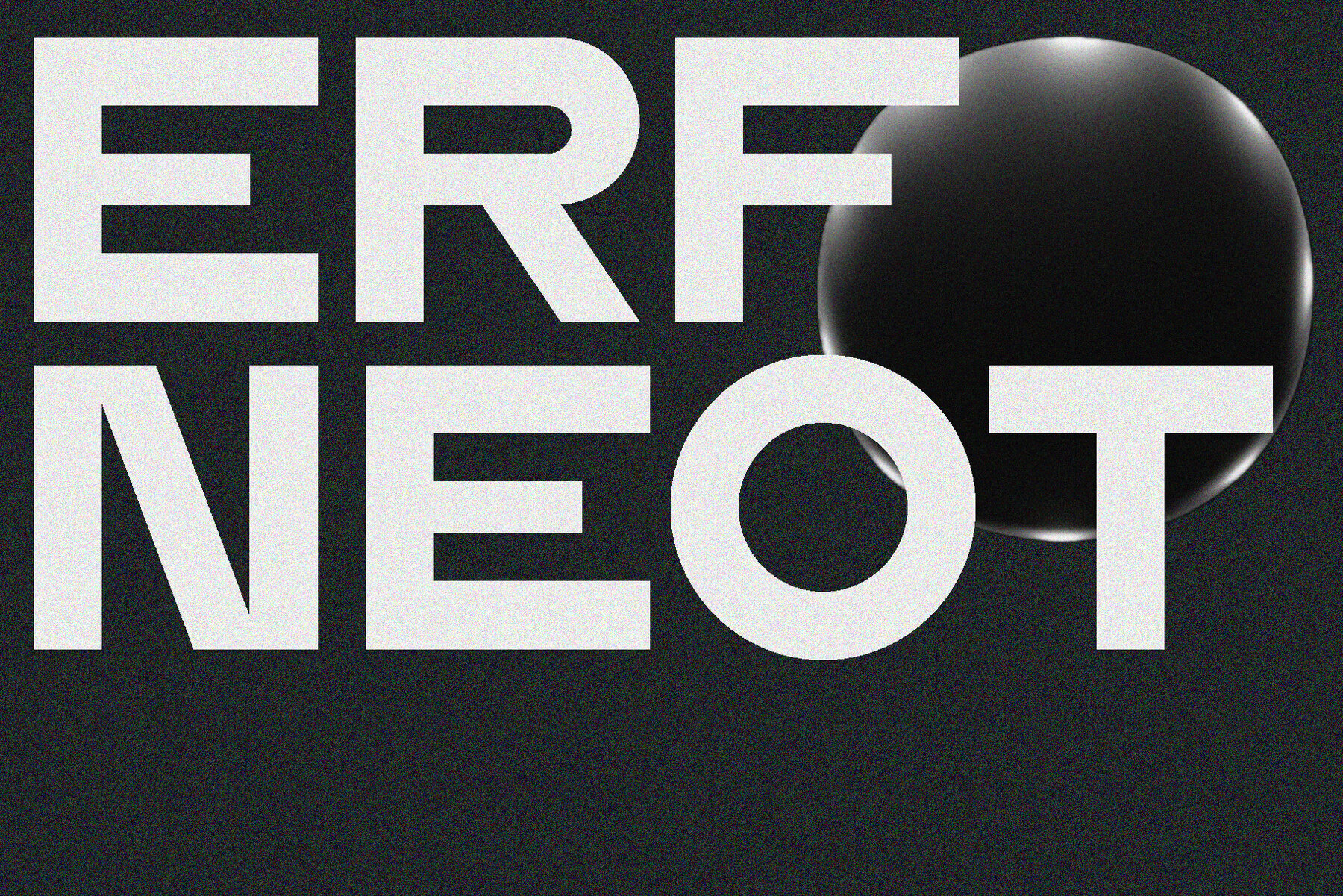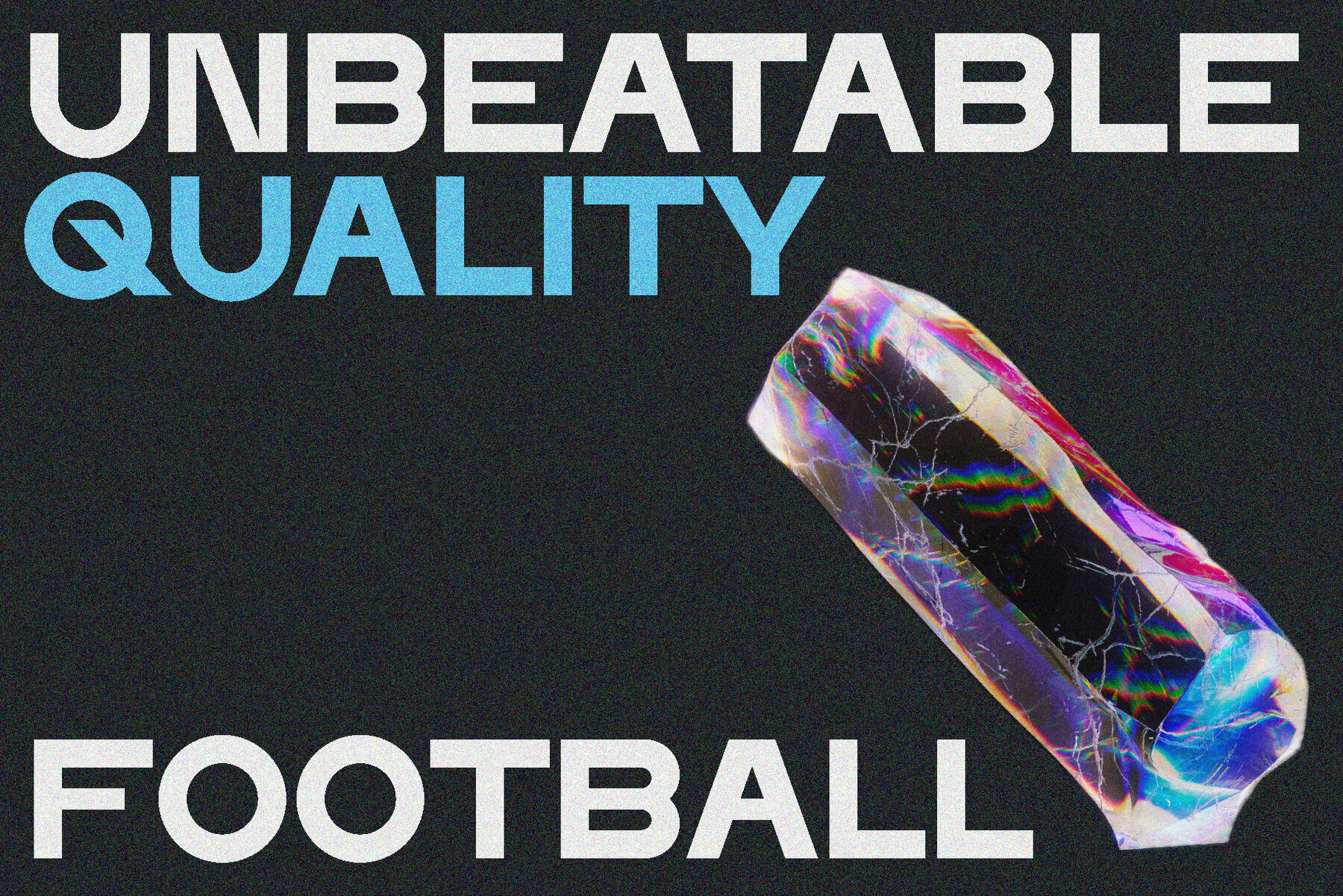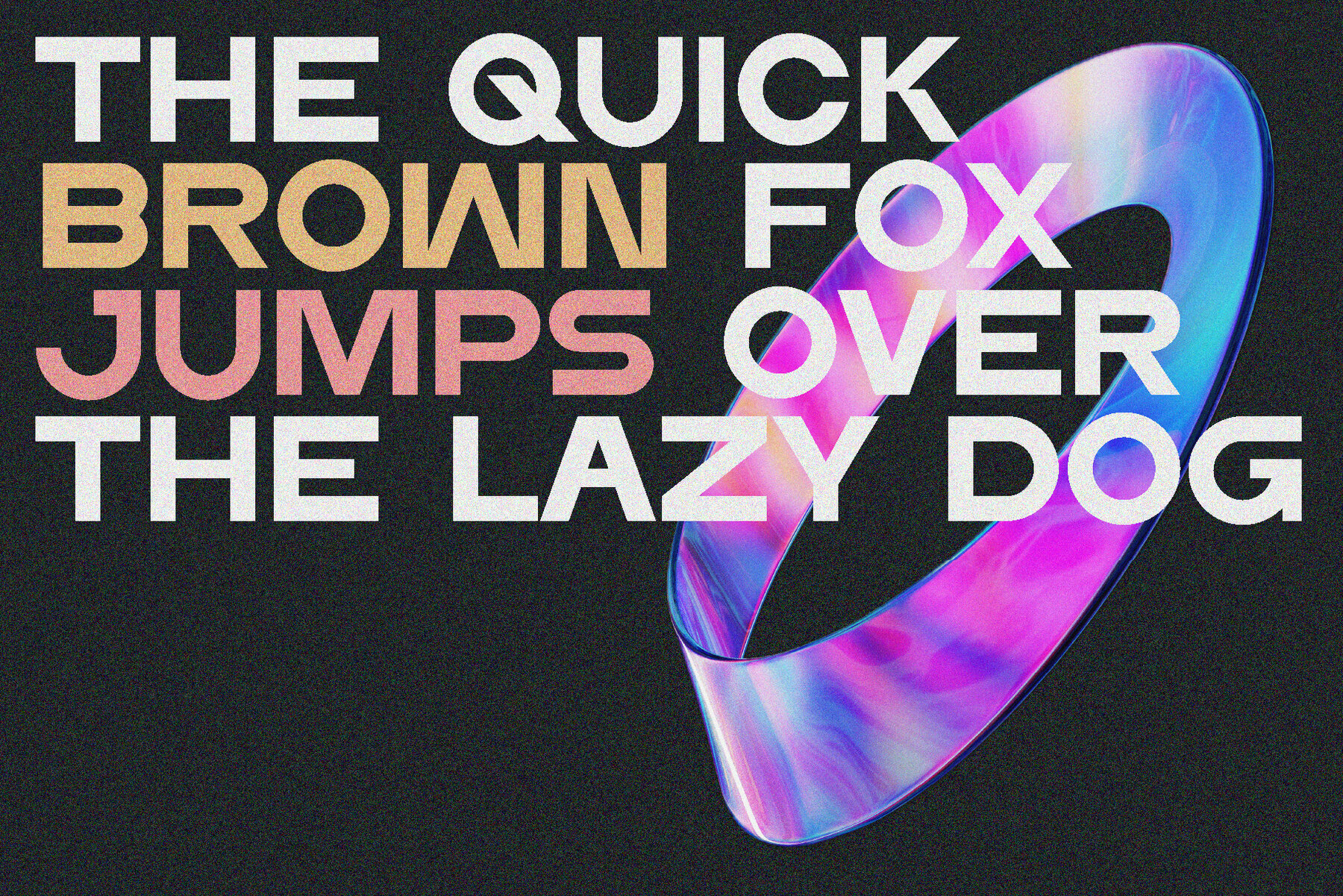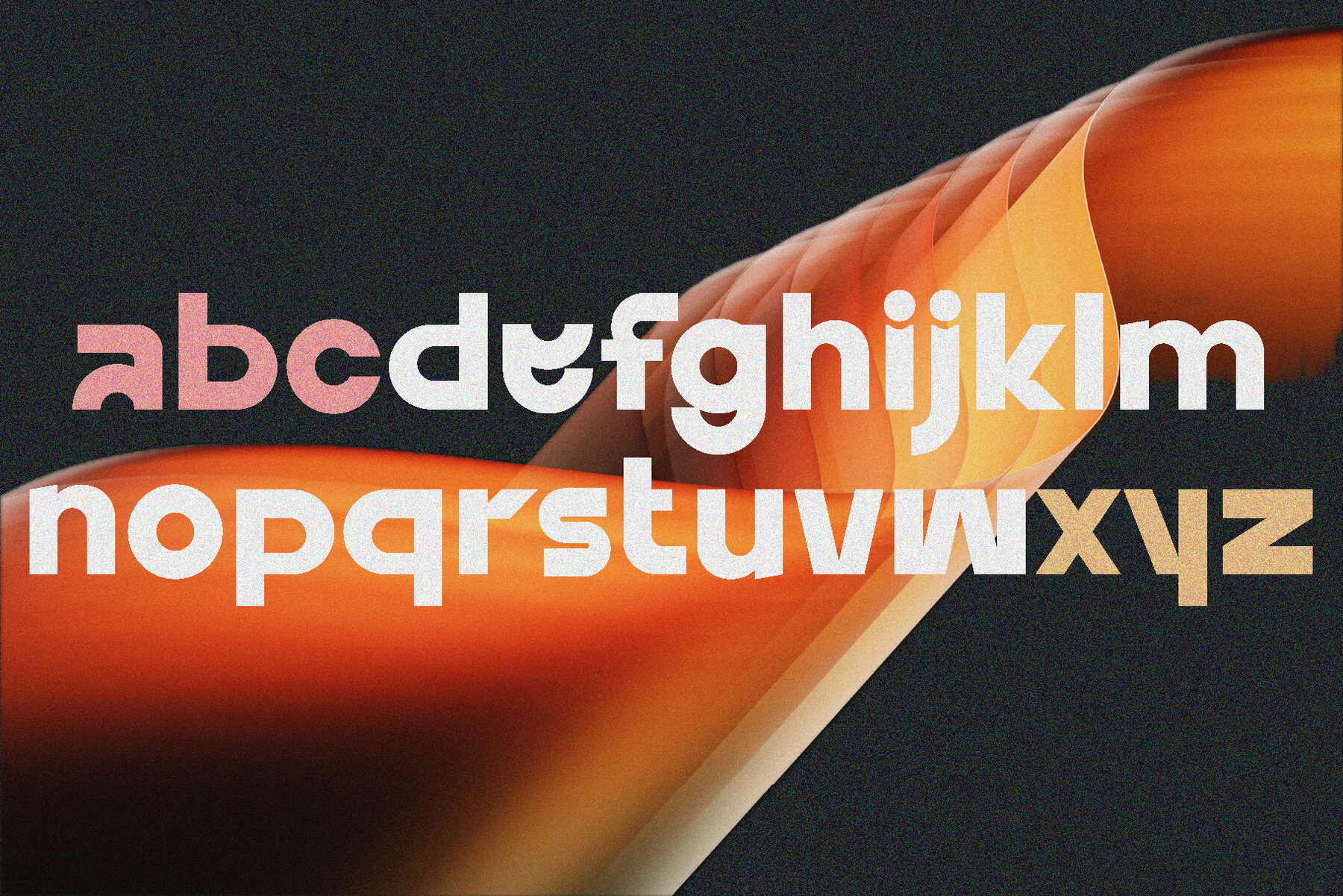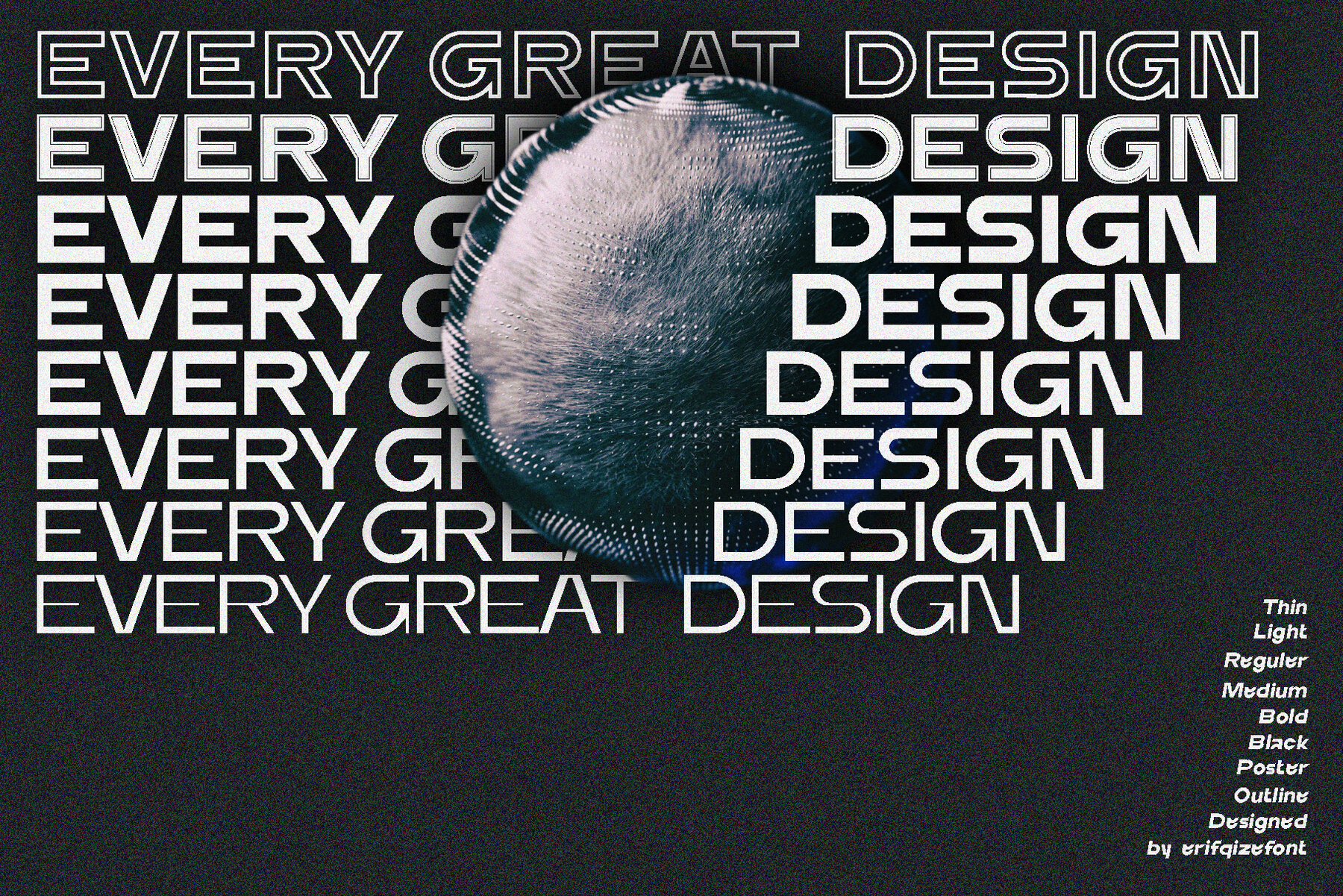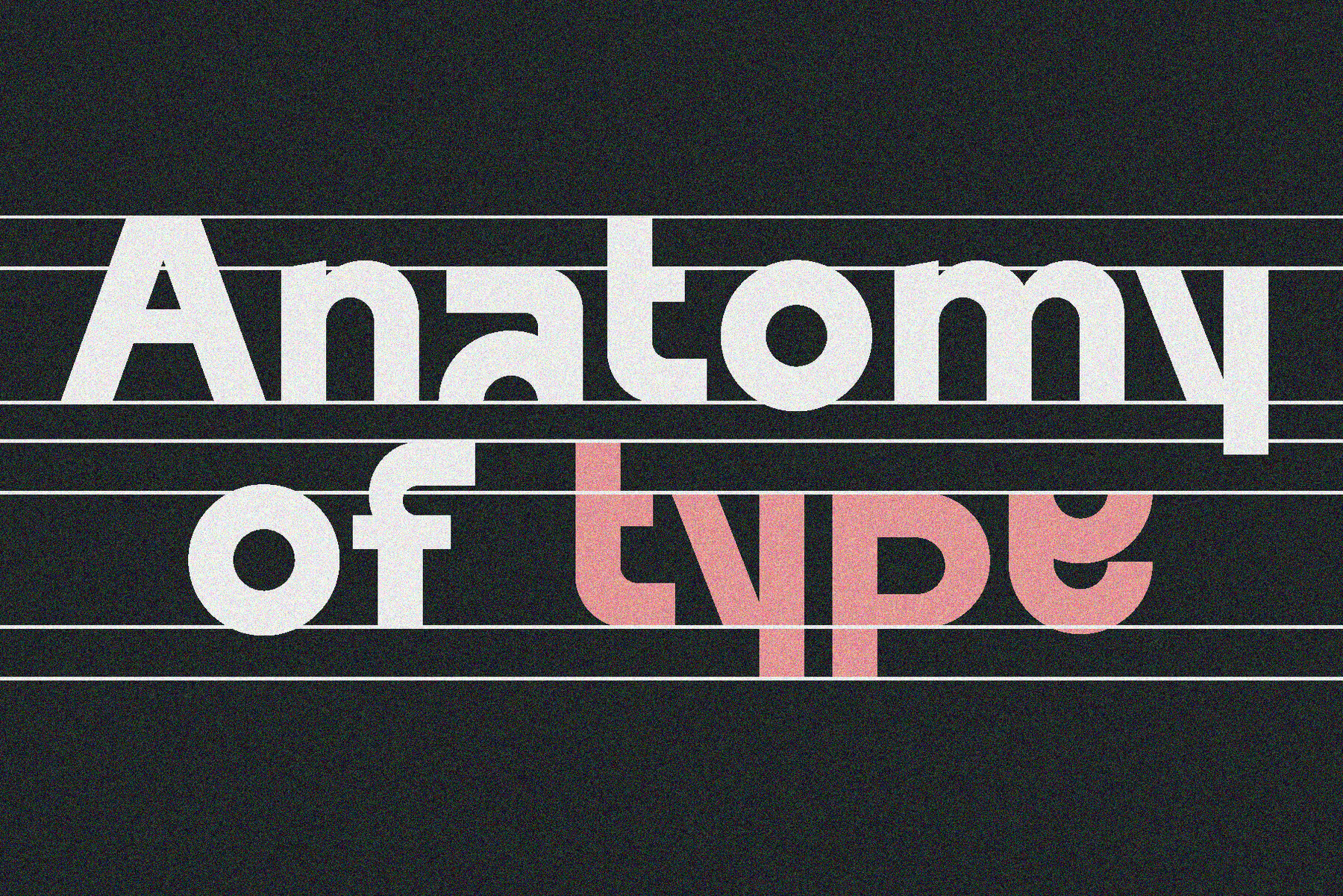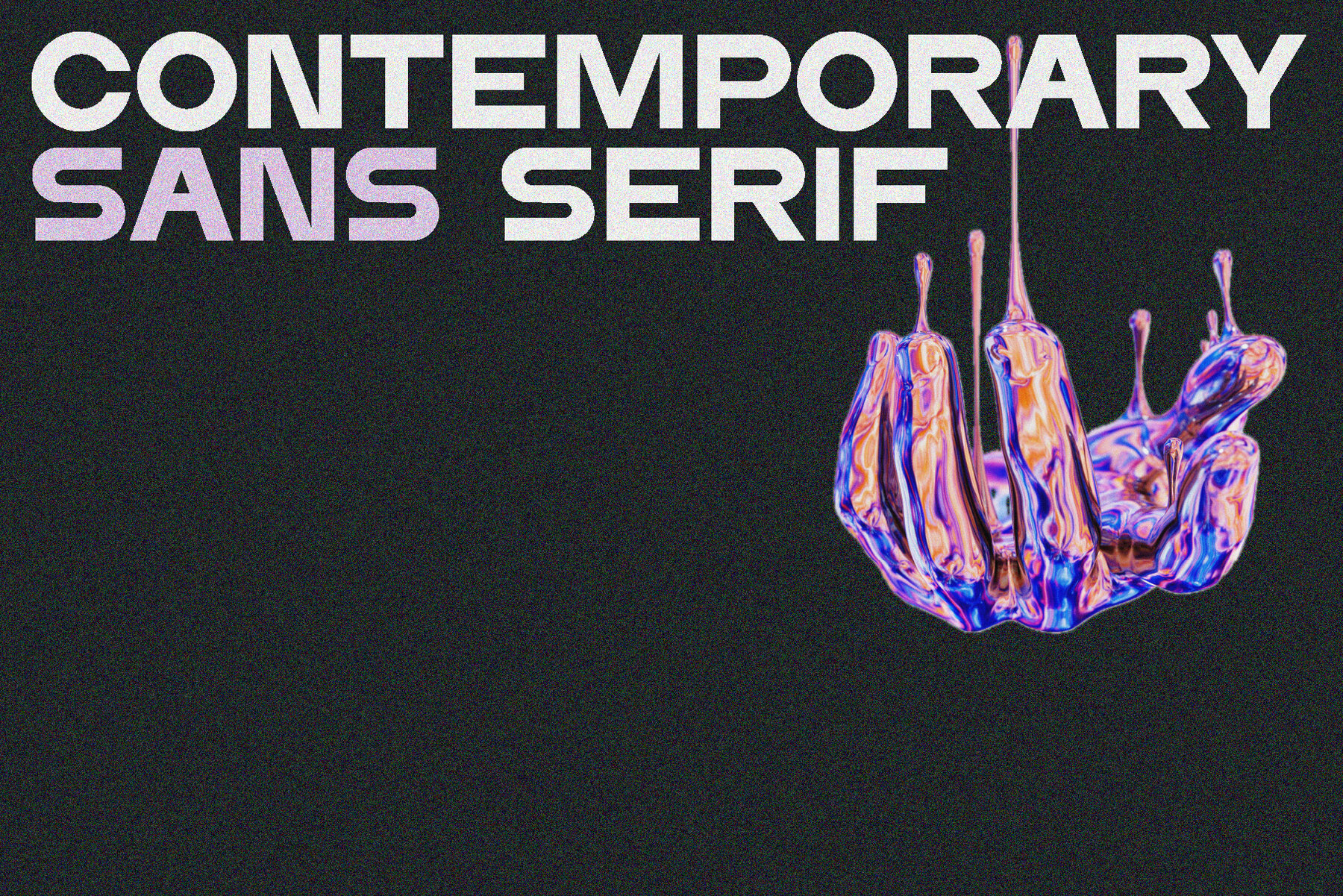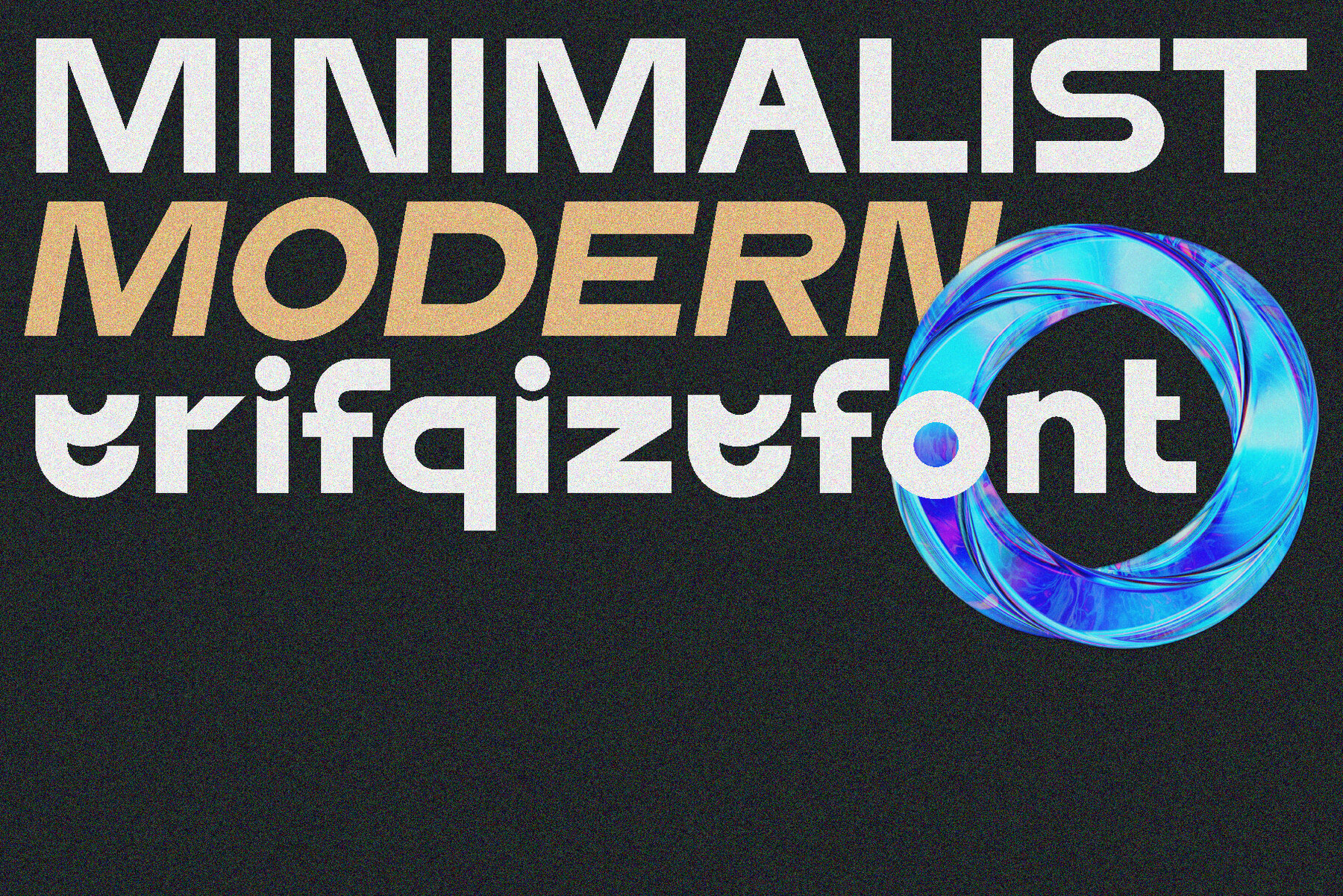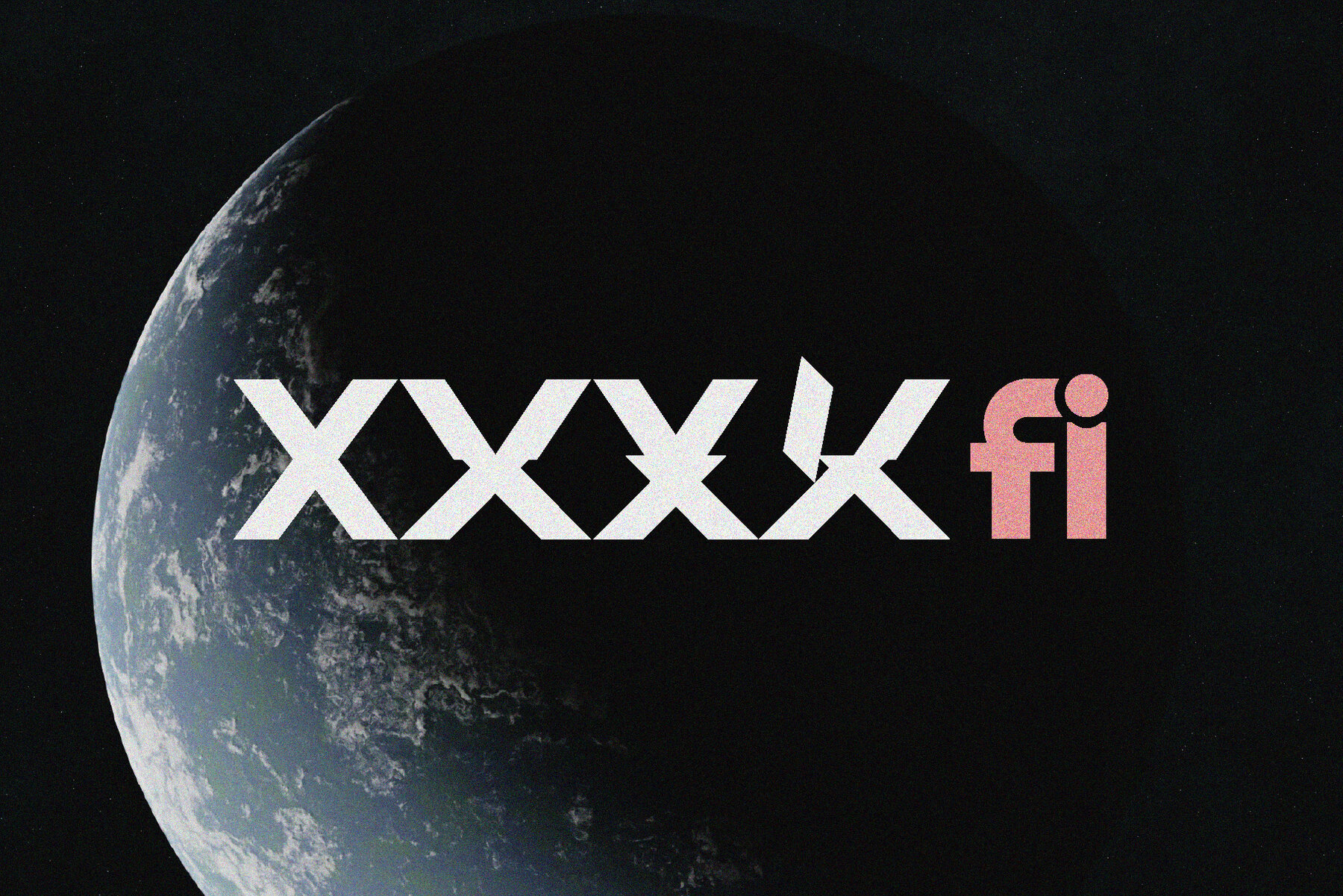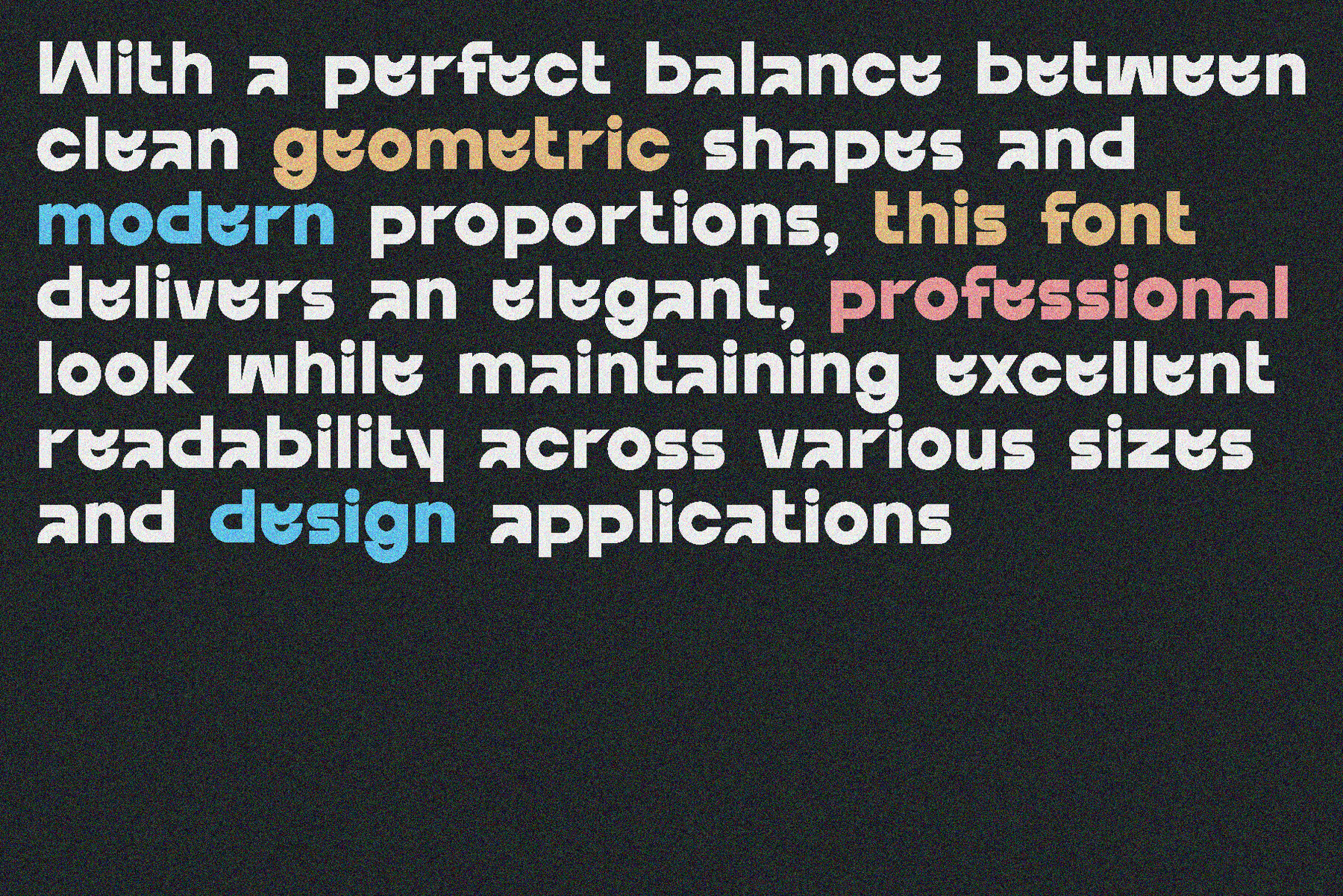
ERF Neot Font
ERF NEOT is a modern geometric sans serif font family that marries boldness with futuristic minimalism, crafted with clean lines and precise curves. Its 16 distinct styles offer designers a versatile aesthetic suitable for a myriad of design applications. From branding and editorial layouts to UI/UX interfaces, ERF NEOT serves as an adaptable choice for innovative projects. The font's multilingual support ensures legibility across various languages, reinforcing its utility for global communications. Aiming for a sleek tech ambiance or a professional corporate identity, ERF NEOT promises clarity and impact without compromising style. Features:ERF NEOT: Modern Geometric Sans Serif